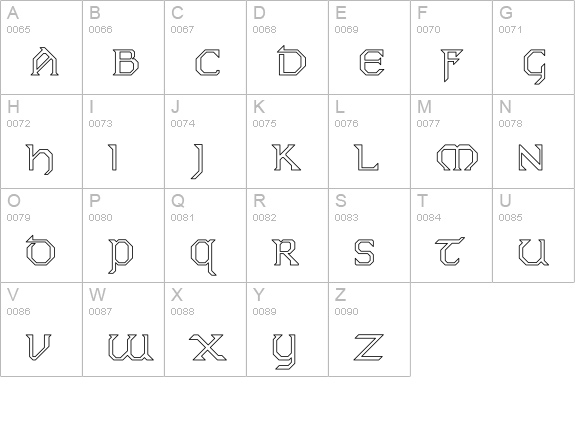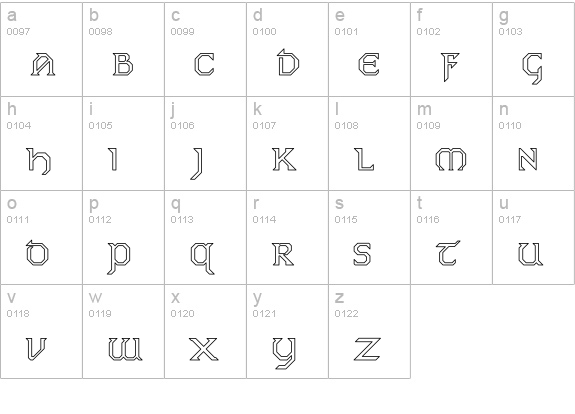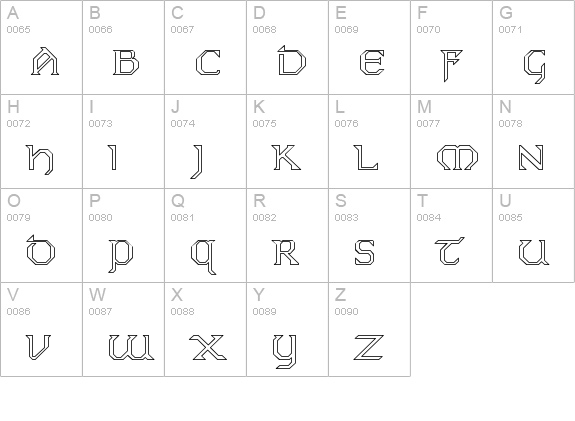
Eire Ho font is a stunning display typeface that exudes elegance and sophistication. With its unique blend of sharp edges and smooth curves, this font is perfect for adding a touch of modernity to any design project. Whether you're creating a logo, branding materials, or a website, Eire Ho font will make your text stand out with its bold, eye-catching appearance. What's even better is that Eire Ho font is available for free download at FontsMarket.com. Yes, you read that right - this high-quality font can be yours at no cost, allowing you to elevate your designs without breaking the bank. Don't miss out on the opportunity to enhance your creative projects with the exquisite Eire Ho font. Download it today and let your imagination run wild!